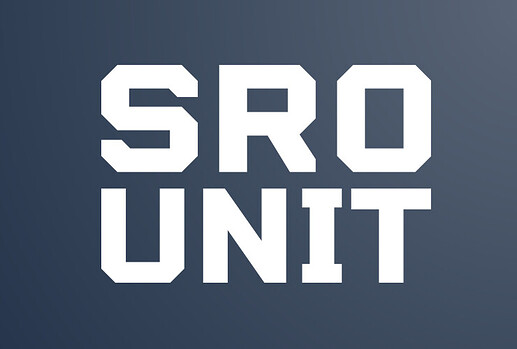
Can anyone help me Identify this font? The R and S are so unique
I could be way off, but it looks to me as someone may have manipulated Winner Sans.
A corner snip and a squish and it’s near identical.